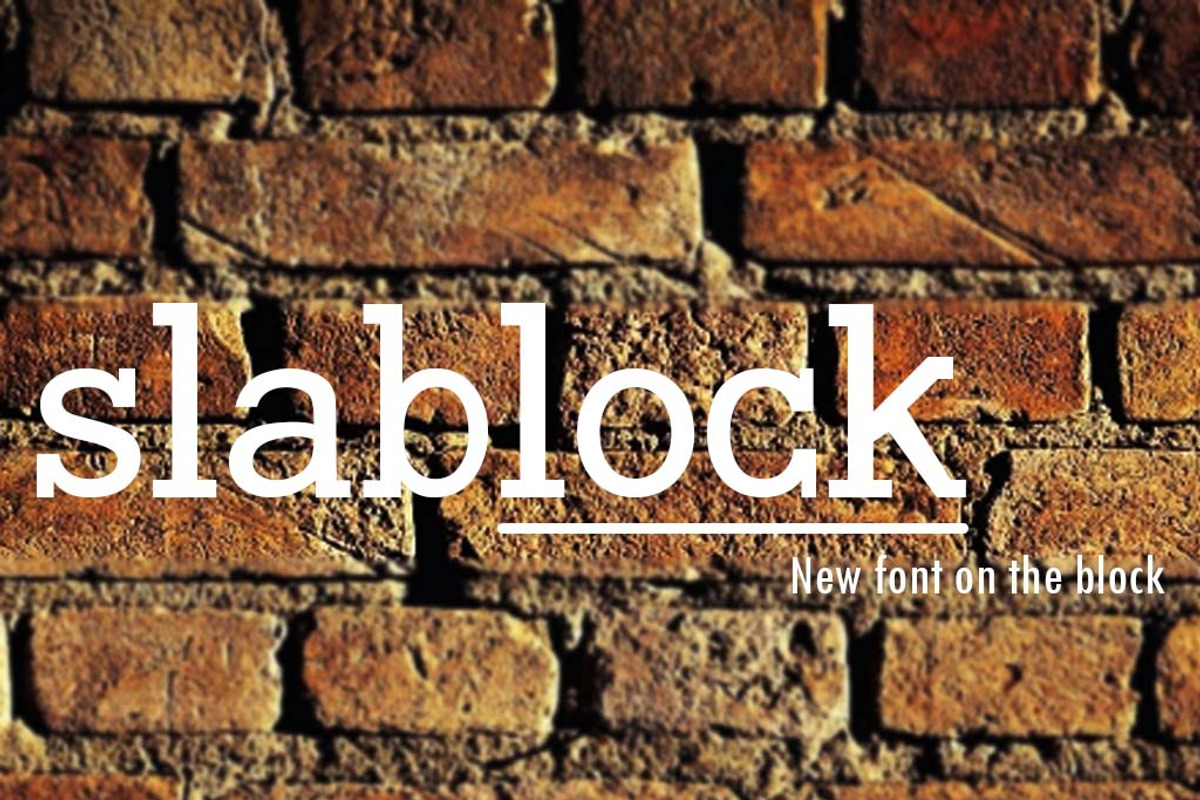
slablock - new style slab font
slablock - new style slab font by FTLY is a font selected for branding, posters, packaging, typography.
Why slablock - new style slab font is worth a look
slablock - new style slab font by FTLY fits naturally into Branding, posters, packaging, typography.